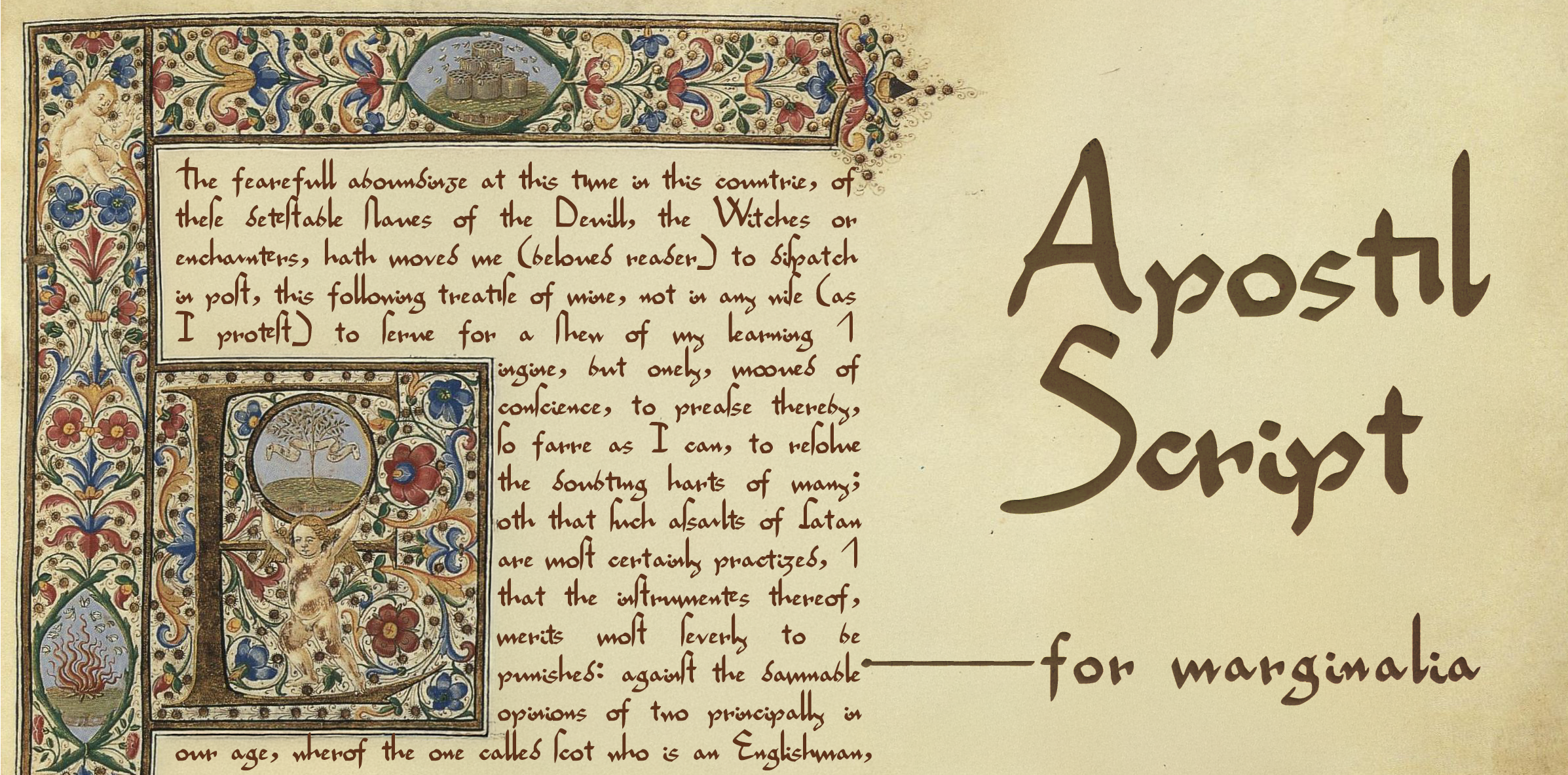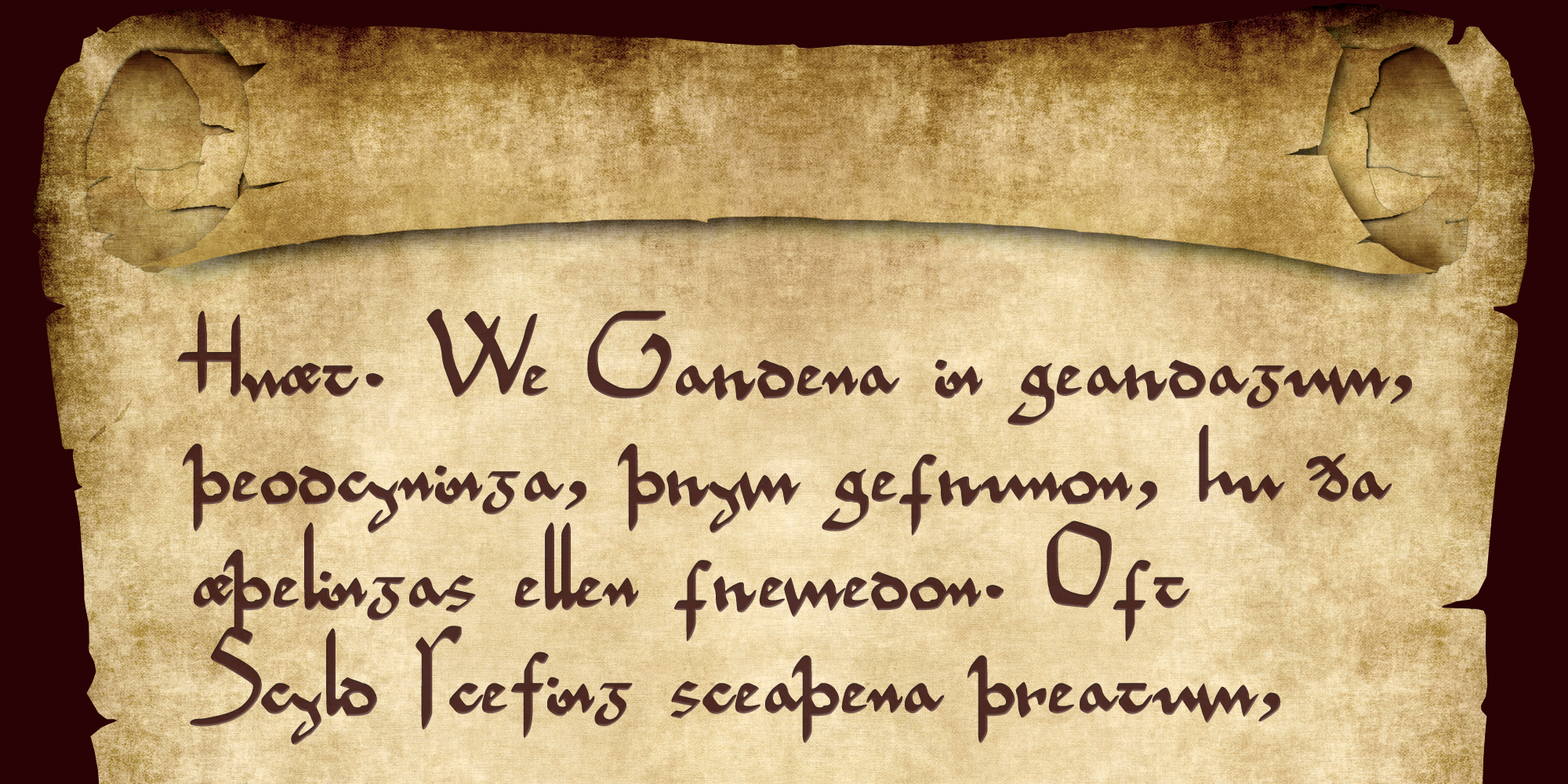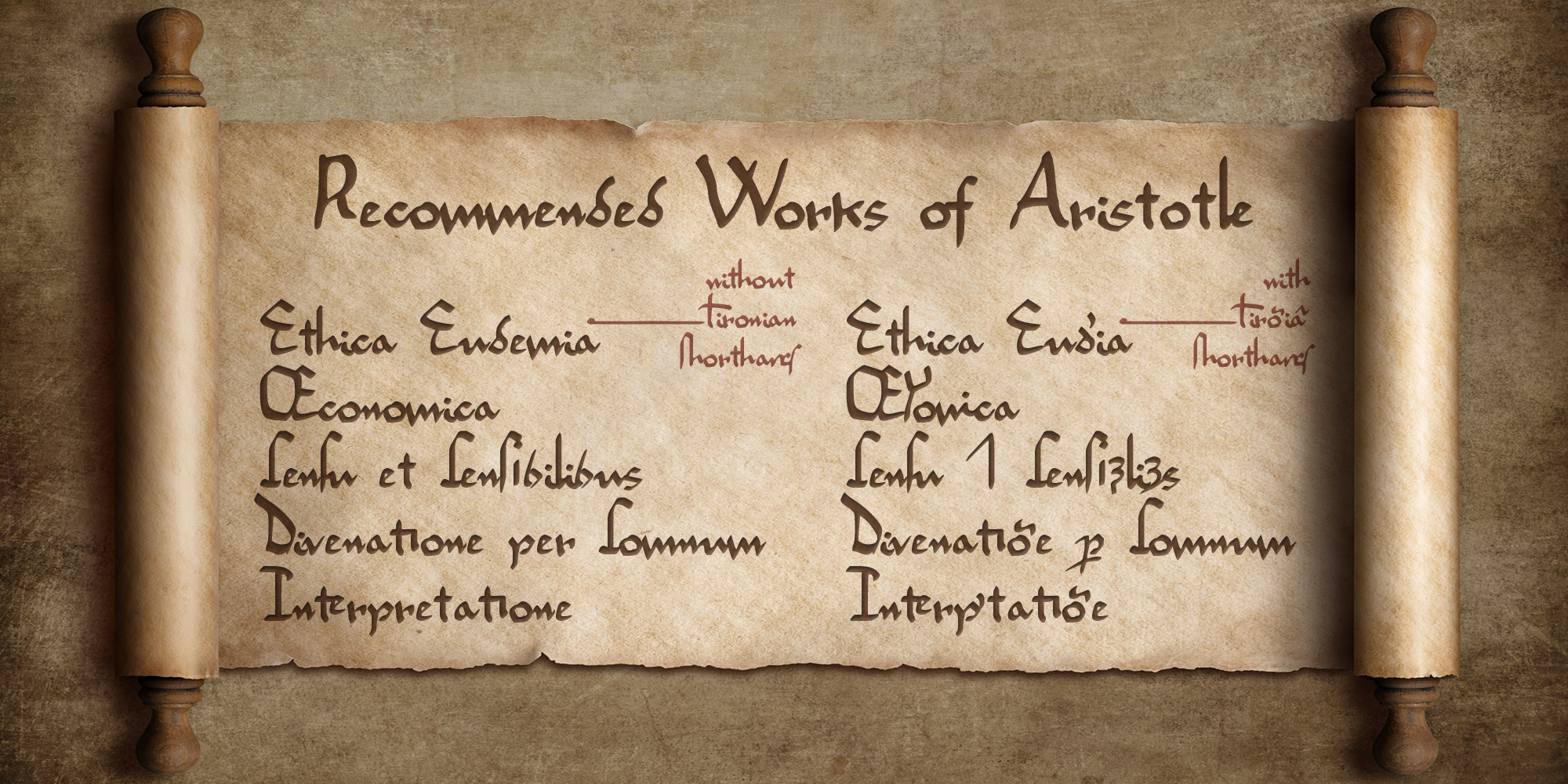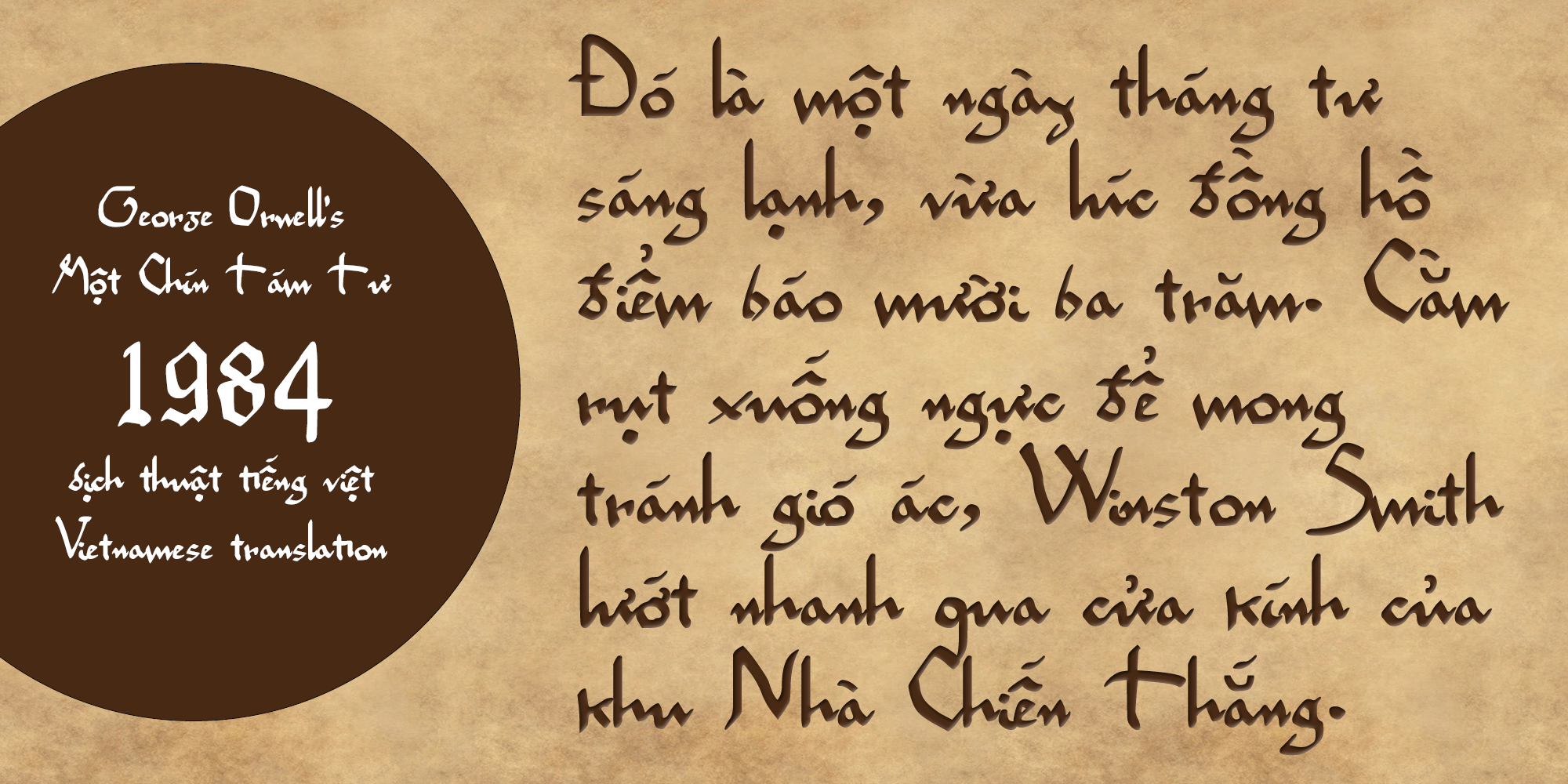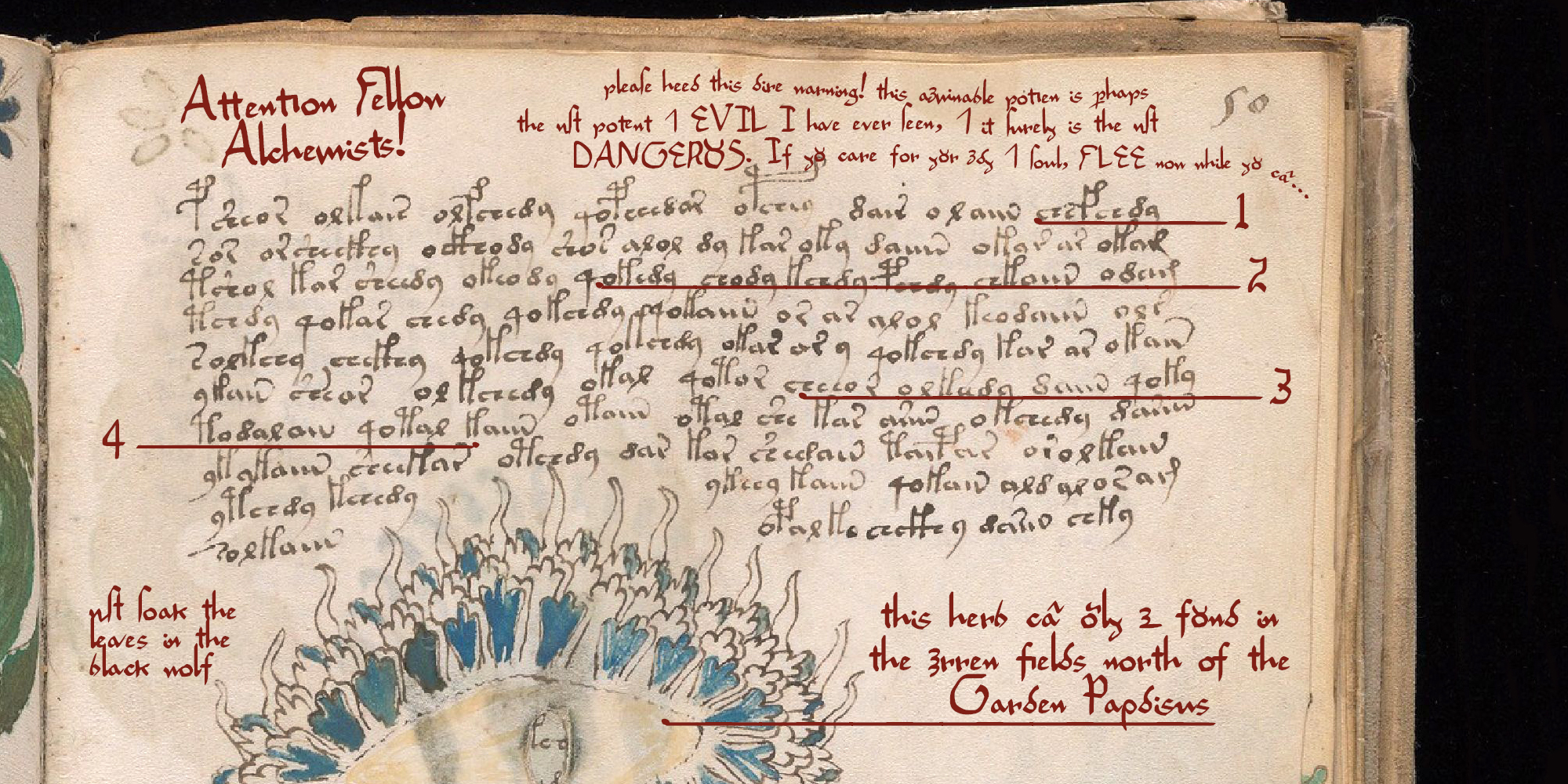
An apostil is a marginal note: something hand-written, and usually added after-the-fact. Apostils may be scholarly commentary written in the margins of ancient religious folios, or perhaps hastily-scrawled warnings added to the pages of a magical grimoire. Apostils written on ancient manuscripts often look cramped or rushed, and may be written in shorthand; they may have noticeably different handwriting, or even a different color ink, than the main text on the page.
This is why we created Apostil Script. Apostil Script is the handwriting of cryptic notes hastily scratched into the margins, adding mystery and intrigue to your world’s scrolls and other artifacts. The font includes several optional features that you can use to add to the cryptic and ancient feeling of your text: the “long S”, so-called “insular lettering” (popular in the British Isles between the 7th and 12th centuries), and Tironian shorthand (used by monks throughout the middle ages). Apostil Script has extensive coverage of unusual and accented letters, allowing you to transcribe anything from Old English to Vietnamese.
Family Name
Apostil Script
Style Name(s)
Regular
Typeface Class
Display
Width Class
Medium
PFM Family
Script
IBM Family
S Brush Unjoined
OT Features
dlig kern liga salt